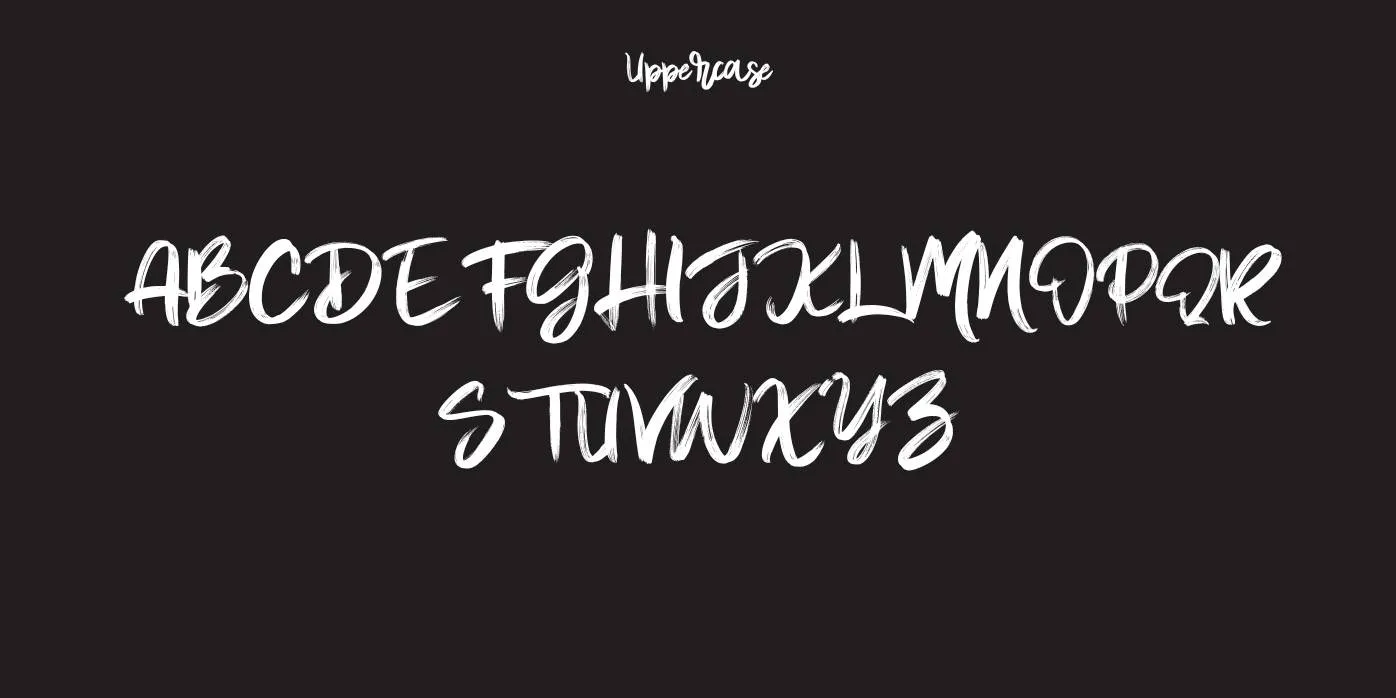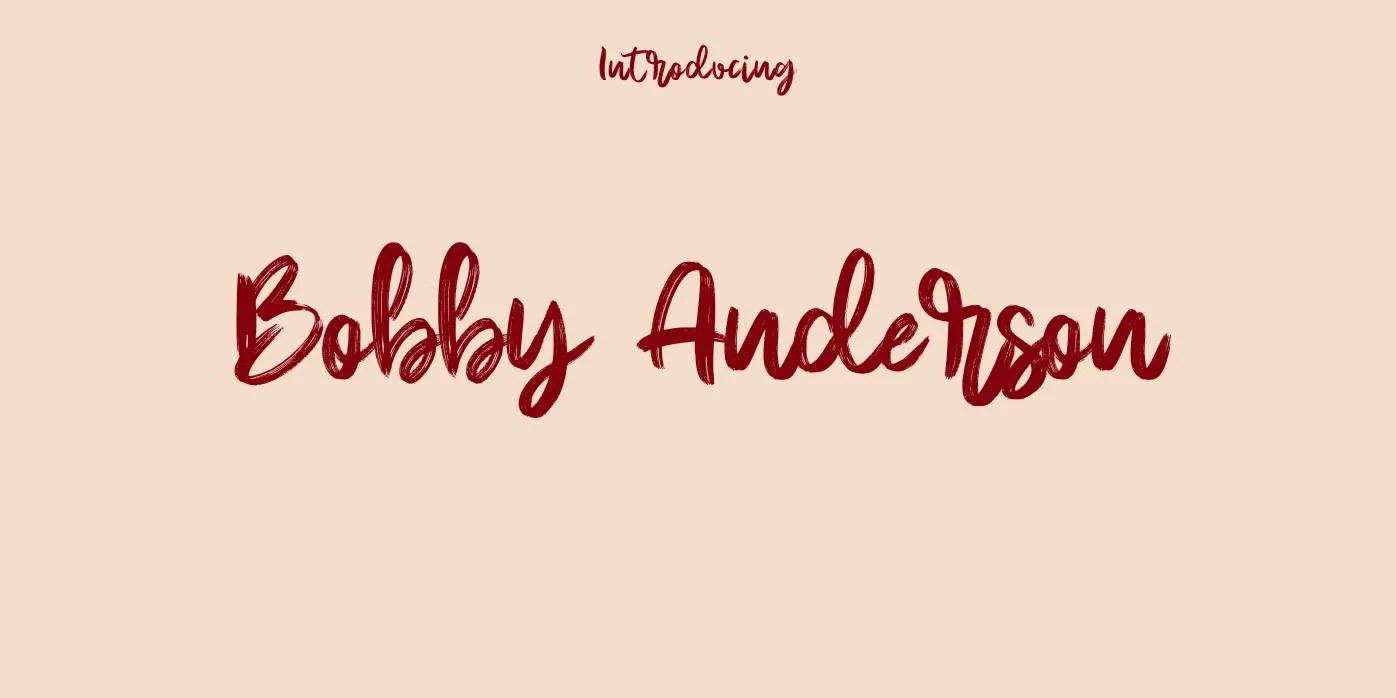
Bobby Anderson Font
Bobby Anderson font is a very unique handwritten font and you can make different projects by using this font. This amazing font is designed by Letterara. It has a very stylish and modern look. This stunning font has different features it contains 309 characters, 275 glyphs, and 2048 units per Em.
Usage This stylish and modern font can be used to design many different projects by using its different features it has characters, small letters, capital letters, punctuations, symbols, and special characters. You can use it to make attractive logos and titles. It can also be used to design magazine and book covers. This font is good for branding and product packing.
Different types of invitation cards such as wedding cards, birthday party cards, and greeting cards can be made by using this font. It is suitable for both types of print and digital media. You can use it for making stylish handwritten quotes and notes. To make graphic and website designs it can be used as well.
Is Bobby Anderson a Handwritten Font? Yes, it is a very nice and modern handwritten font and can be used to design many different projects. Can I use Bobby Anderson font for my Logos? You can make so many designs by using this stylish font and eye-catching logos can also be made with this font.